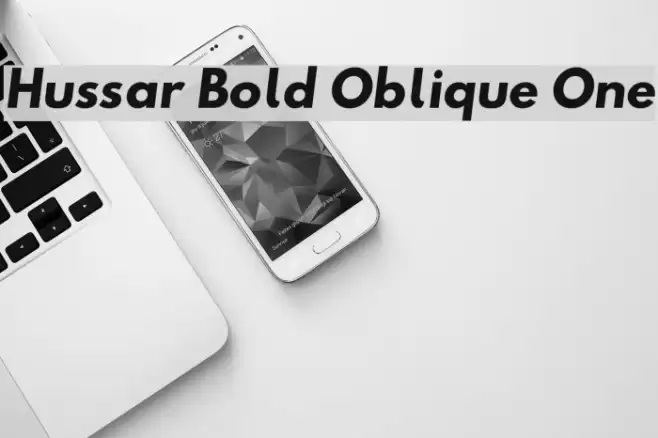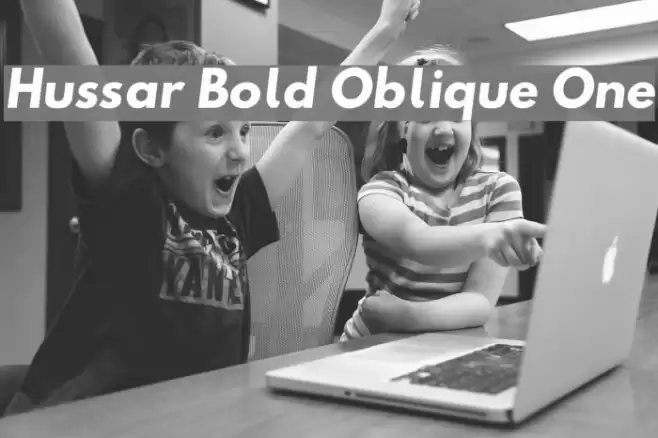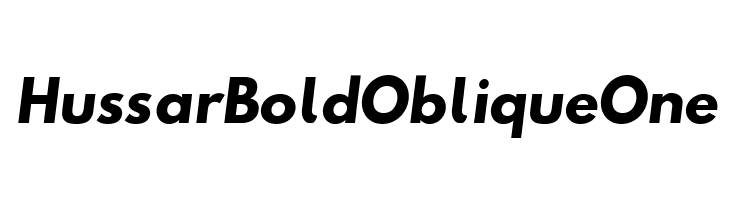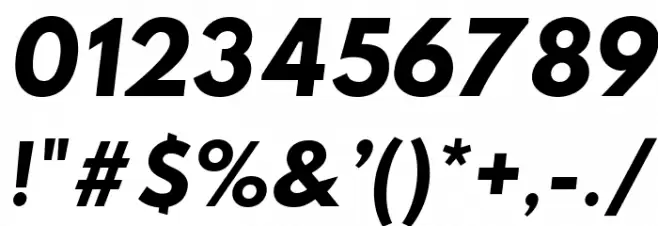
Hussar Bold Oblique One
This font exhibits a bold and oblique style, characterized by its strong and dynamic appearance. The letters are slightly slanted, giving a sense of motion and energy. The strokes are thick and consistent, providing a robust and impactful look. The uppercase and lowercase letters maintain a uniform width, contributing to a cohesive and balanced design. The numerals are clear and bold, ensuring readability. Special characters are well-defined, complementing the overall style. This font's boldness and slant make it suitable for attention-grabbing designs.
A bold, oblique font with strong, dynamic strokes and a cohesive design.
- Proposed Projects: Ideal for branding, advertising, headlines, and posters where a strong impact is needed.
- Use Case: Headlines, Logos, Posters